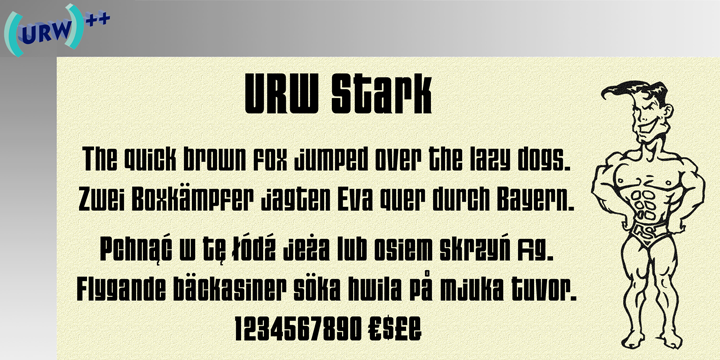
Stark Font is perfect for brutalist architecture branding, industrial design projects, minimalist poster campaigns, modern art museum displays, high-tech product packaging, avant-garde fashion labels, contemporary gallery exhibitions, stark corporate identities, urban planning presentations, and bold editorial layouts. This commanding minimalist typeface excels in applications where raw simplicity, architectural boldness, and uncompromising design need to be communicated with powerful presence and unapologetic modern authority.
Stark Font is exciting because it embodies the raw power of brutalist design philosophy with every uncompromisingly bold letterform. Its stark proportions and commanding structure create an immediate sense of architectural strength and modernist conviction. The font's distinctive minimalist characteristics and powerful construction make it particularly compelling for brands seeking to communicate confidence, authority, and authentic modernist values in their bold marketing communications and cutting-edge brand identities.
The Stark Font family includes various brutalist styles: Light, Regular, Bold, and Black versions, each maintaining the characteristic stark aesthetic while offering different levels of visual impact and architectural intensity. These variations provide designers with comprehensive tools for creating layered modernist compositions and achieving perfect balance between minimalist authenticity and contemporary presentation.
For designers creating avant-garde brands or architecture-focused projects, Stark Font Free Download delivers authentic brutalist character with professional design strength. Whether you're developing modernist architectural identities, contemporary art marketing materials, or industrial product branding, this powerful typeface provides the perfect foundation for conveying architectural confidence and modernist appeal. The font's extensive character set includes architectural symbols and geometric elements that enhance brutalist design compositions and modernist brand storytelling with genuine avant-garde typographic authority.